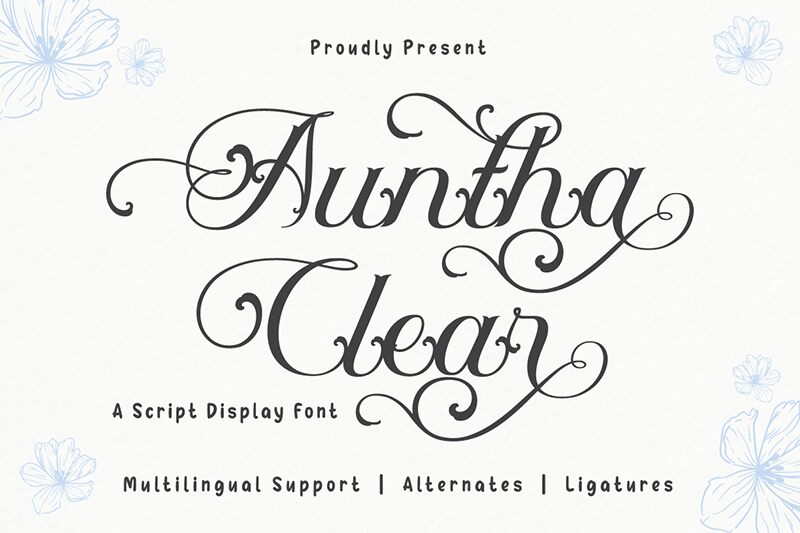
Auntha Clear, designed by Naya of Twinletter, is an exquisite artistic calligraphy font that exudes elegance and grace. With its semi-light weight, it strikes the perfect balance between delicacy and readability.
This font adds a touch of sophistication to any project, making it suitable for wedding invitations, high-end fashion magazines, or luxury branding. Its flowing strokes and intricate details captivate the eye and create a sense of timeless beauty.
Auntha Clear is the perfect choice for those seeking a font that combines artistic flair with legibility in a truly unique way.